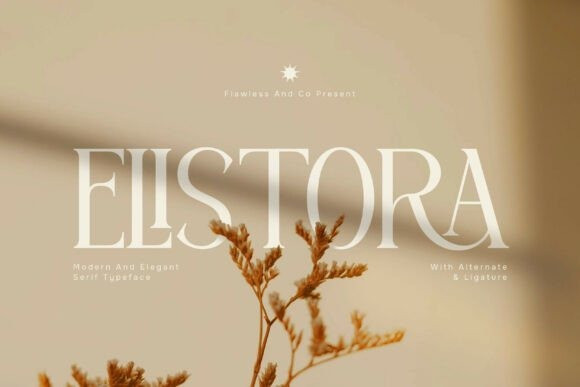
Elistora Font
Elistora Font is a modern elegant serif typeface that beautifully combines refined sophistication with a clean contemporary style. Designed with graceful curves, balanced proportions, and delicate details, Elistora creates a luxurious and timeless impression that enhances any visual composition. Its elegant structure brings a sense of class and professionalism, while the modern touch keeps it fresh and versatile for today’s design needs. Whether used for headlines or refined text layouts, Elistora delivers clarity, beauty, and a strong visual presence.